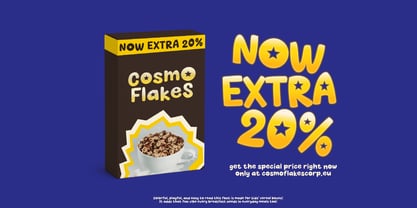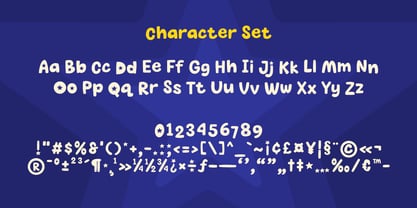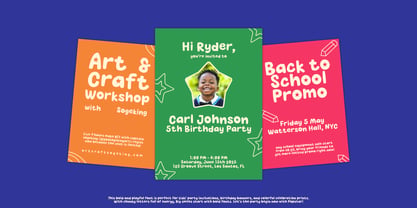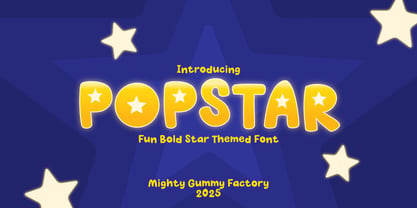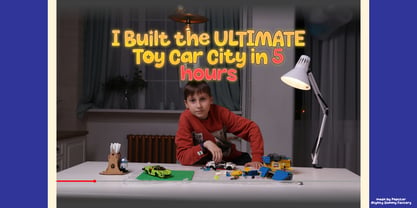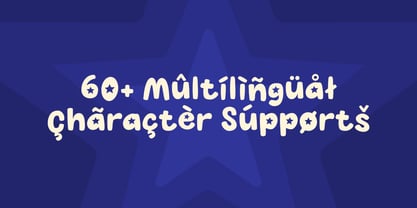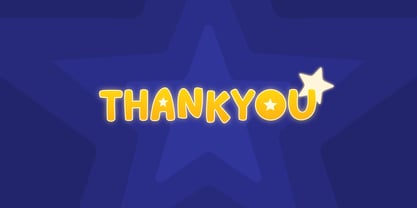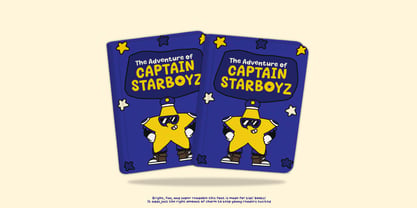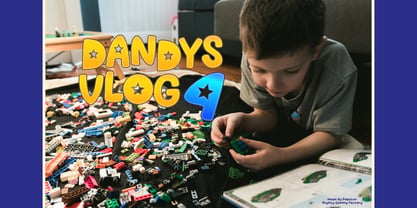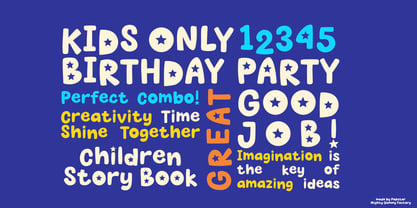
POPSTAR is a bold, rounded display font with a star-themed twist that brings instant fun to any design. Perfect for children’s books, toy packaging, Instagram content, YouTube thumbnails, and playful branding, this eye-catching font is made for designers who want to stand out with joyful energy. Its thick, friendly letterforms feature built-in star accents that add a spark of personality, making POPSTAR a must-have for creative projects targeting kids, families, and fun-loving audiences.
POPSTAR is a joyful, high-energy display font that radiates playfulness and cheer. Its thick, bold letterforms are accented with whimsical star cutouts that instantly capture attention.
Intended Market Use:
Perfect for kid-centric designs, toy brands, YouTube channels, Instagram creatives, playful packaging, and children’s books—POPSTAR fits right into any fun, family-friendly aesthetic.
Letterform Structure:
Rounded, bubbly, and approachable with soft curves and star-stamped interiors—this sans-serif font is crafted for maximum readability while still being decorative and unique.
Best Use Cases:
• Children’s book titles
• Toy packaging & product branding
• YouTube thumbnails & streaming overlays
• Birthday invitations & party themes
• Educational apps & playful merch
• Social media posts for family brands
Light up your designs with POPSTAR – the ultimate font for joyful branding, children's content, and playful creativity. Whether you're crafting for a toy brand, a kids’ channel, or a festive campaign, this font instantly adds sparkle and charm to your message.
🌟 Star-Packed Personality
Every letter bursts with a fun-loving character, enhanced by built-in star details that make the font unforgettable.
🎉 Kid-Friendly, Parent-Approved
Crafted with readability and cuteness in mind, making it ideal for early-age audiences and family-focused products.
🎨 Versatile for Branding
Works beautifully across logos, packaging, and marketing graphics that need a punch of playful identity.
📱 Social Media Ready
Perfectly optimized for high-contrast visuals that stand out on screens—ideal for thumbnails, reels, and digital banners.
🧸 Whimsical Meets Professional
POPSTAR walks the line between fun and functionality, making it a reliable choice for both commercial and creative designs.